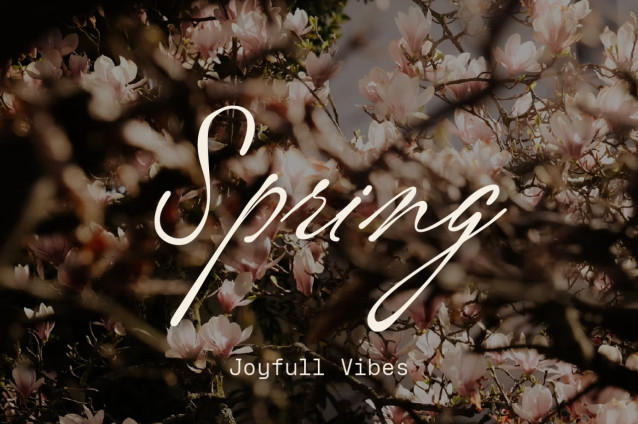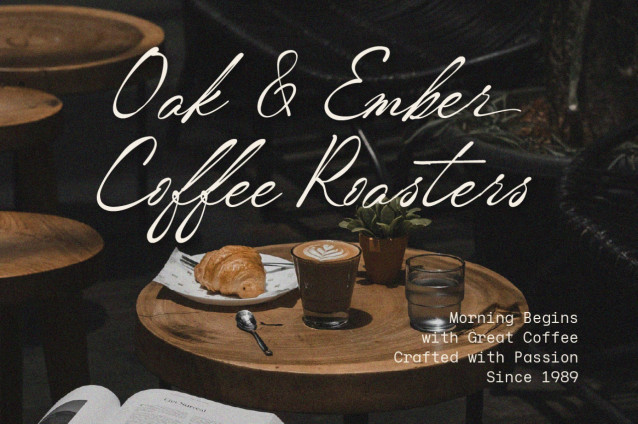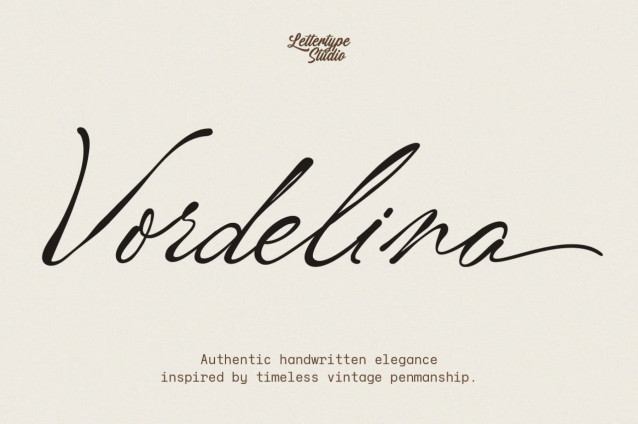
Vordelina Demo Font
Crafted with meticulous attention to every curve and connection, Vordelina captures the beauty of authentic vintage handwriting with exceptional balance and readability. Every letter has been carefully refined to create a smooth and natural writing rhythm, resulting in a script that feels elegant, personal, and timeless.
Inspired by nostalgic penmanship and classic printed ephemera, Vordelina Signature is designed for creative projects that celebrate craftsmanship and authenticity. Whether you’re designing artisan packaging, coffee branding, botanical journals, book covers, stationery, or handmade product labels, this font adds warmth and character to every composition.
With multilingual support, beautiful stylistic alternates, flowing ligatures, and complete desktop and webfont formats, Vordelina Signature offers the flexibility to create memorable branding across both print and digital media. It is a typeface made for designers who appreciate timeless aesthetics, handcrafted details, and elegant storytelling.